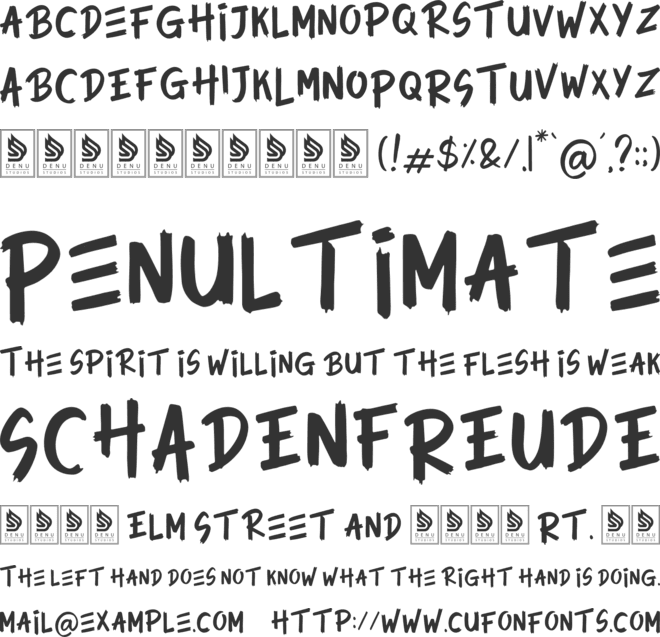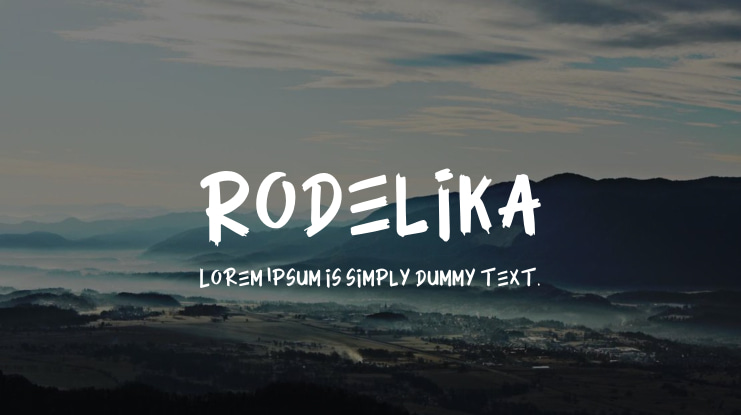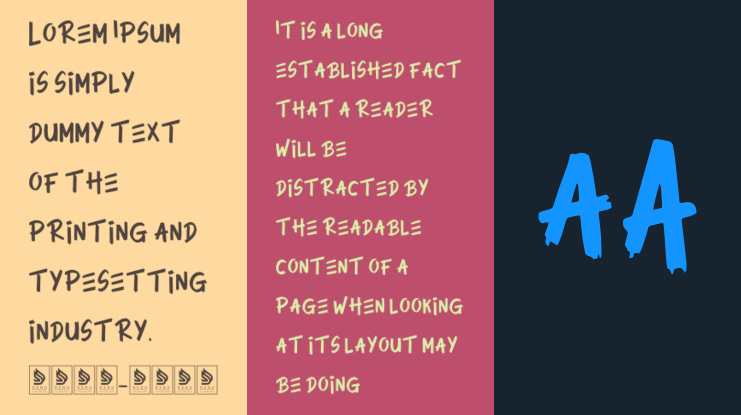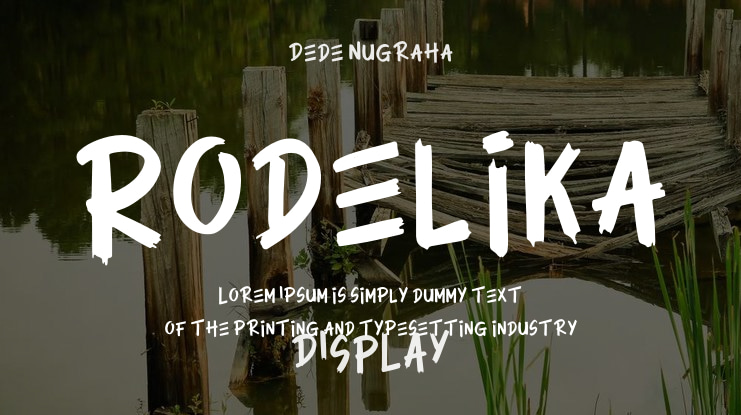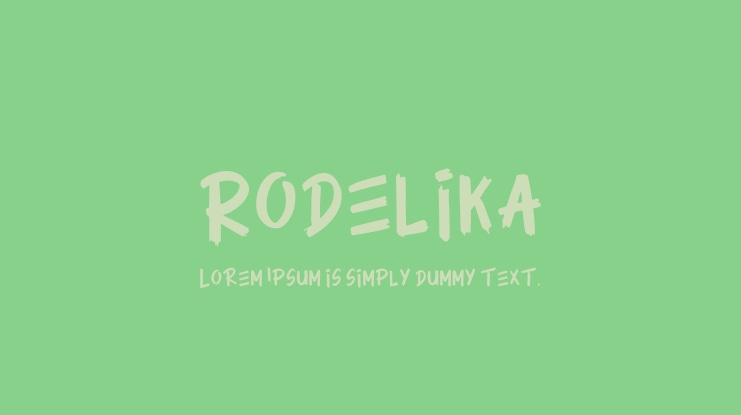
**Rodelika | Modern Brush**
Rodelika | Modern Brush is perfect for various projects such as:
- Logos - Branding projects - Homeware designs - Product packaging - Mugs - Quotes - Posters - Shopping bags - T-shirts - Book covers - Name cards - Invitation cards - Greeting cards - Labels - Photography - Watermarks - Special events - Any other projects that need a Modern Brush flair